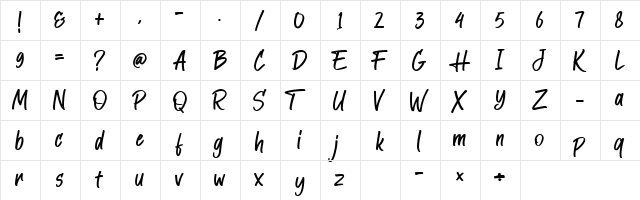
StarTrack Regular
Design Context for StarTrack Typeface
StarTrack is a composed and adaptable typeface that performs quietly and consistently across a wide range of design contexts.
Pro Tip: Use StarTrack in both headline and body roles to test its range before committing to a single application.